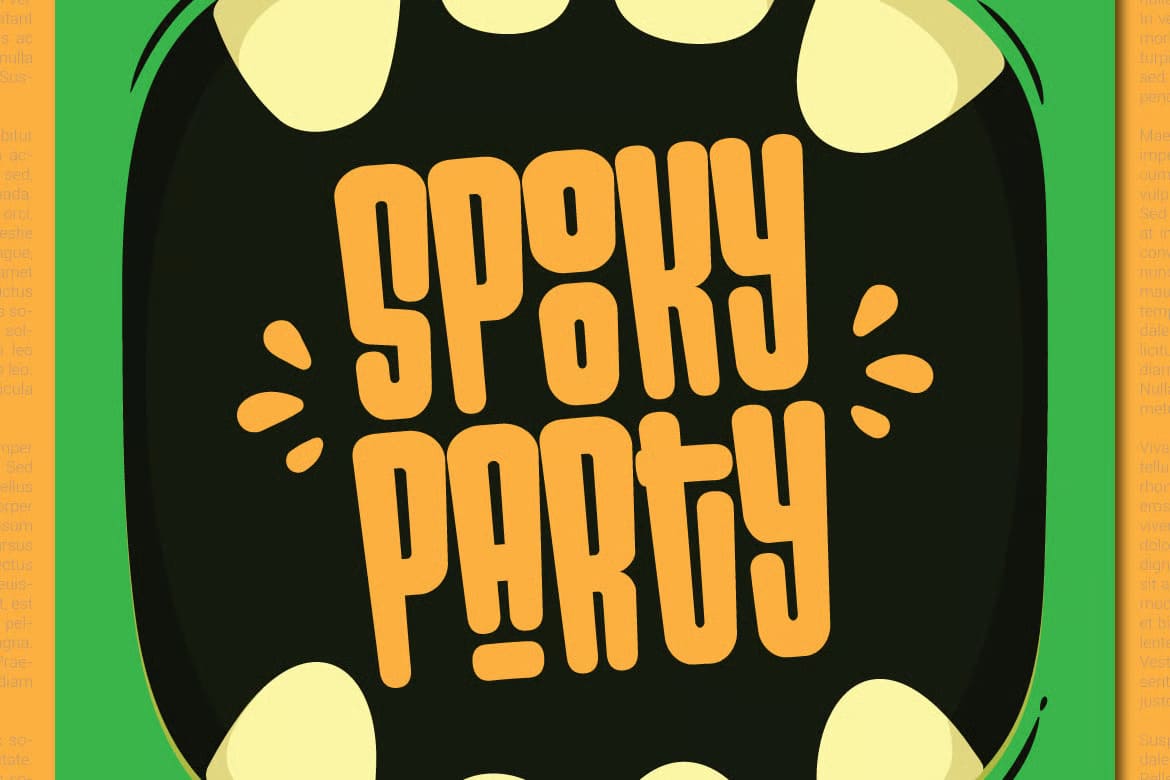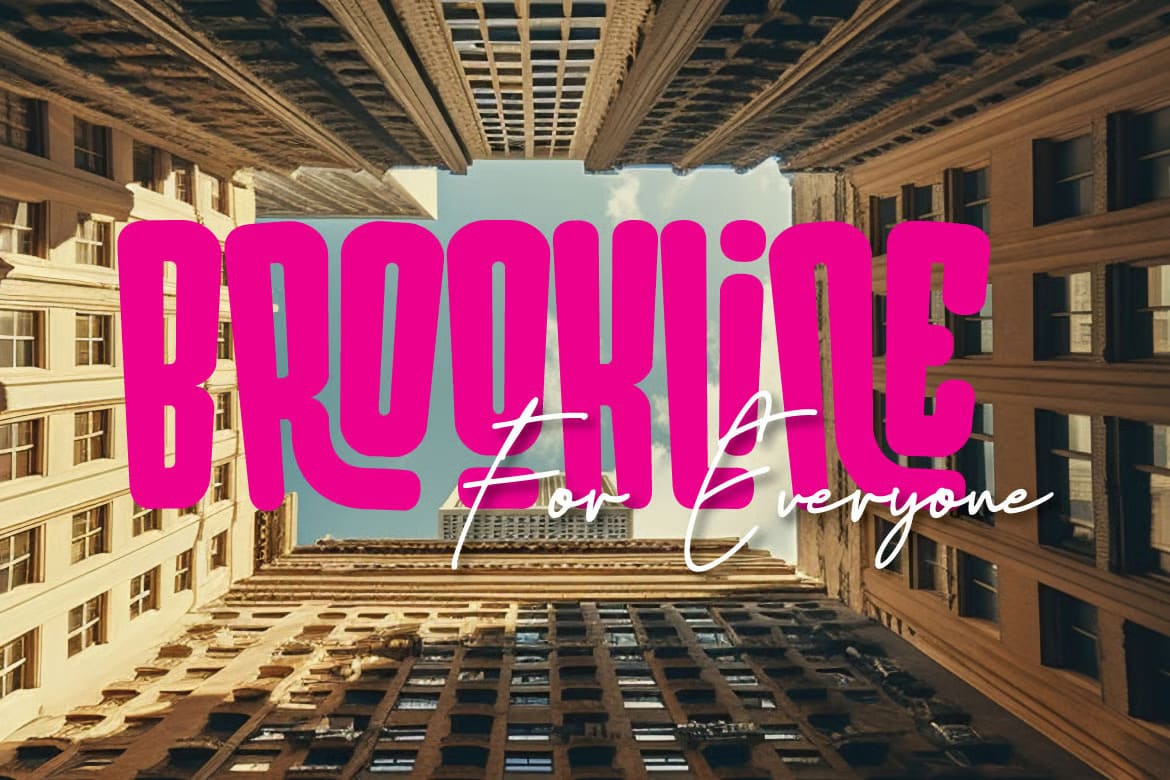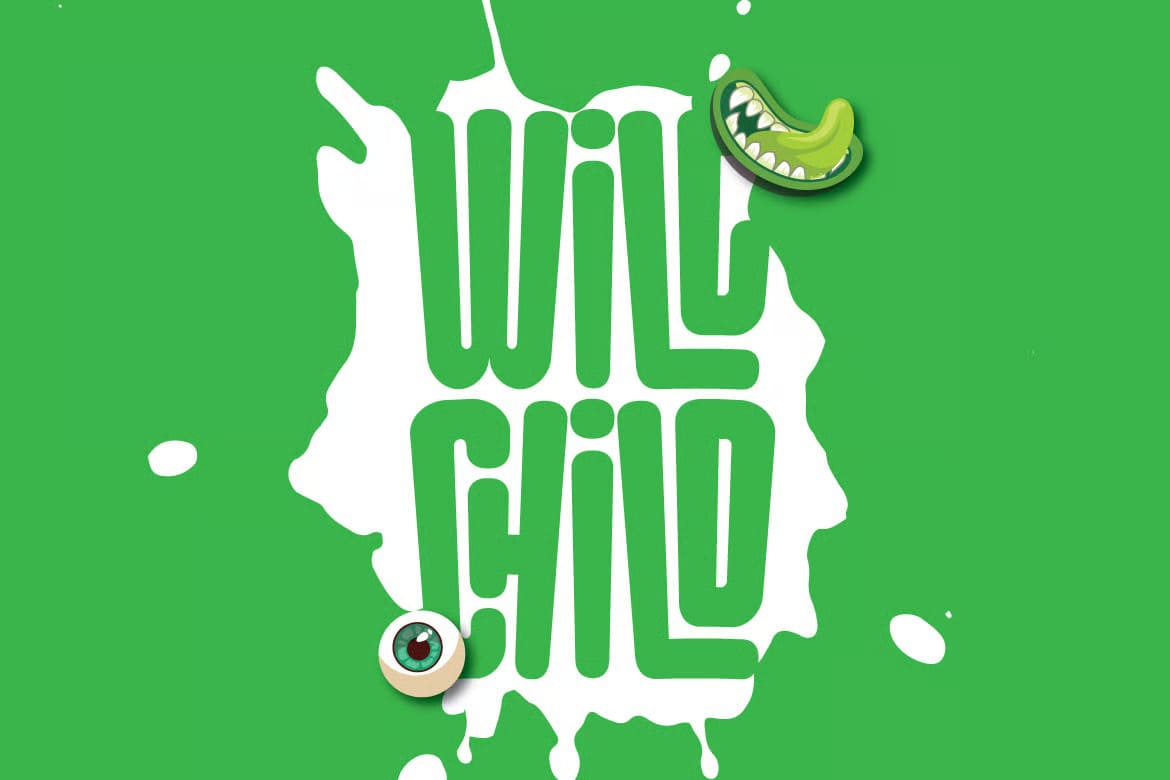
Thoge is a playful typeface inspired by the soft and rounded look of rubber balloons. Its unique style gives designs a light and cheerful feel, making it a good fit for fun and creative projects.
The font includes ligatures that help letters connect more smoothly, adding a bit more character to your text while keeping it easy to read.
- Numbers and punctuation included
- Ligature characters
- Supports multiple languages (Latin Western Europe)